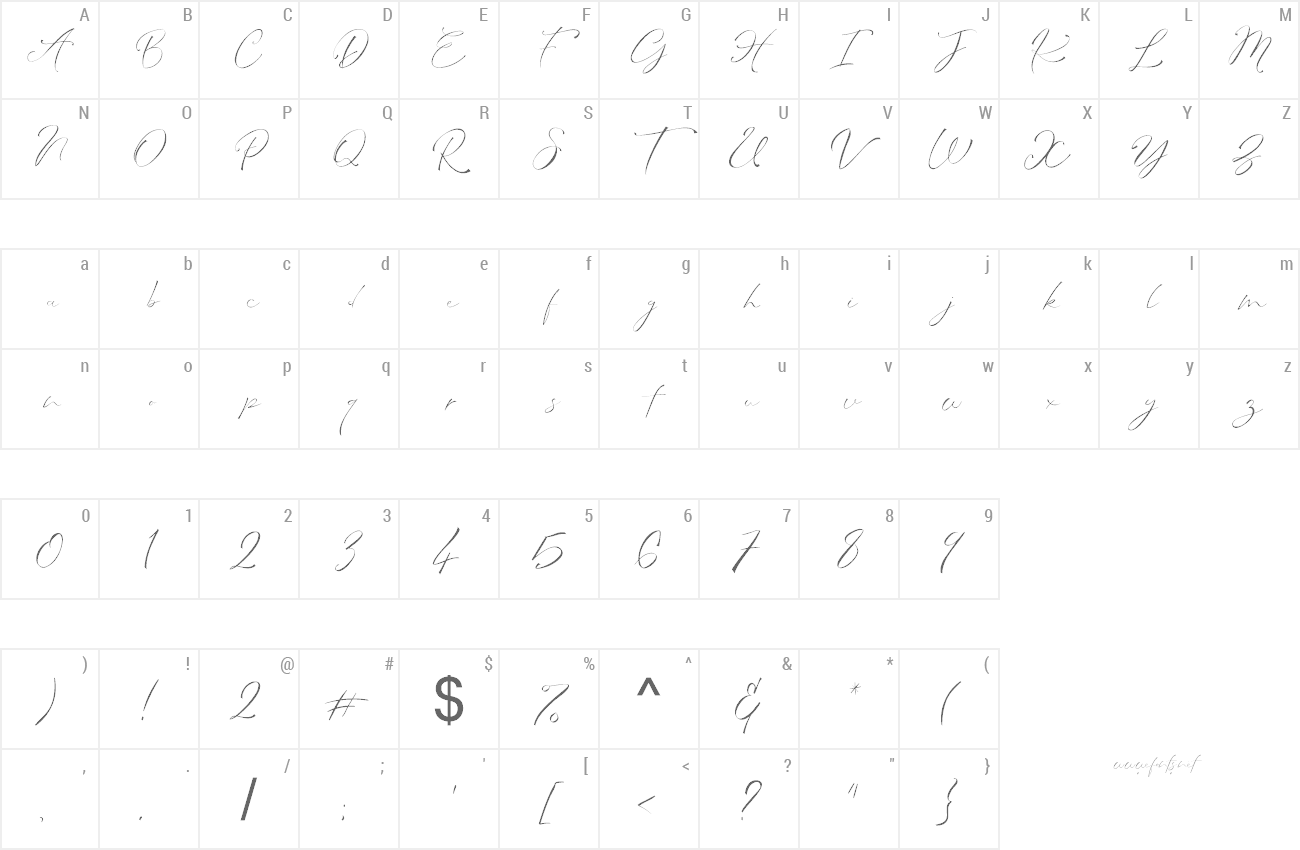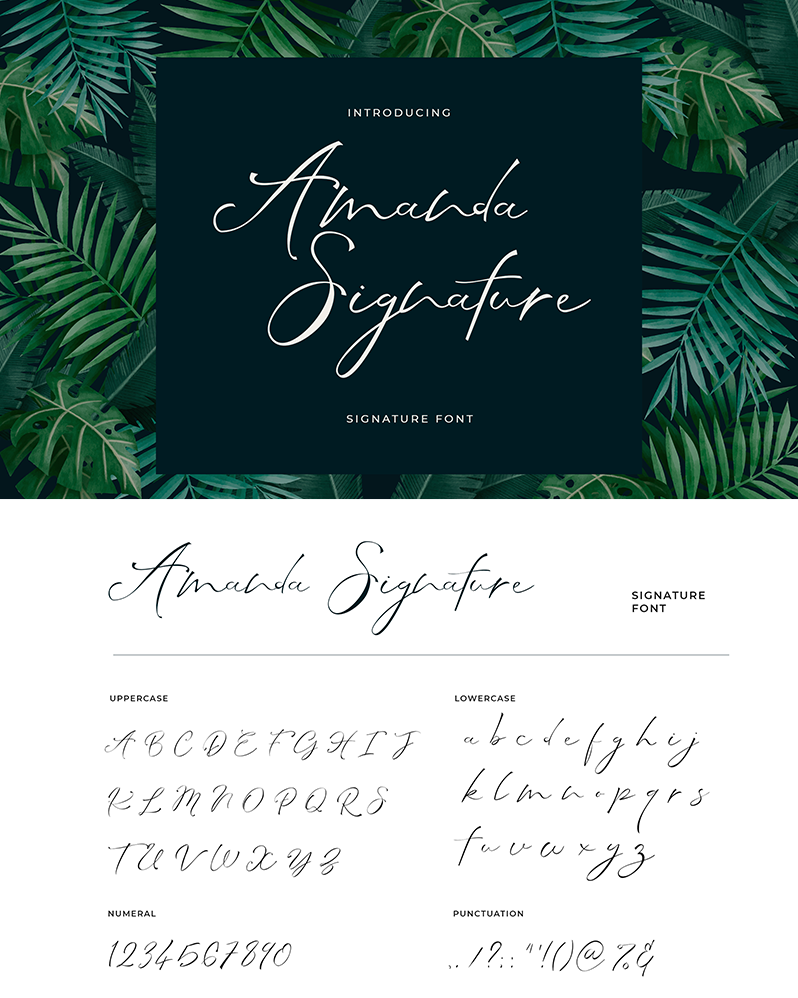
Amanda Signature is a font family that contains high contrast Contemporary Garamond Serif and Casual Signature Brush scripts. This font consists of sophisticated signature style scripts, and elegant, classy serif all-caps fonts. With perfectly smooth curves and silky smooth edges. This font is perfect for adding a modern and classy touch to your project. You can use for various projects and branding such as weddings, social media, product design, stationery, advertisements, quotes, t-shirts, branding, magazines, cards, packaging etc. You can buy full license from our store for more our fonts: https://uicreative.net/products/fonts-amanda-signature |